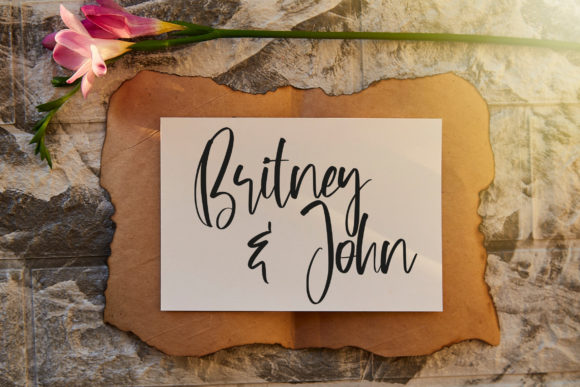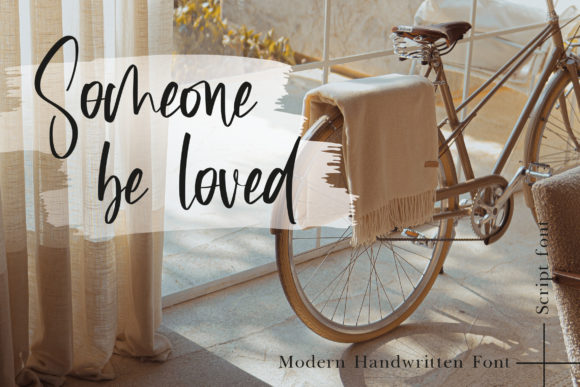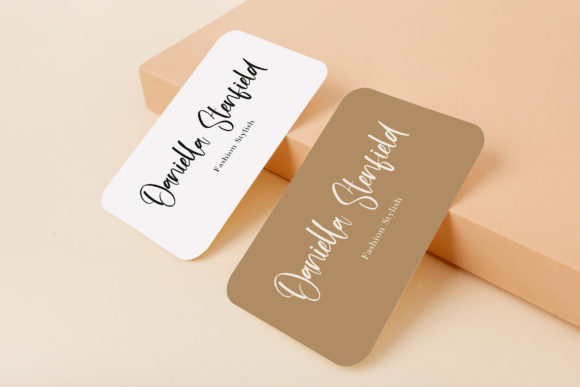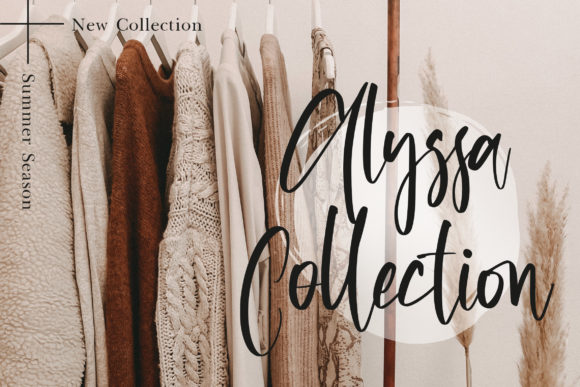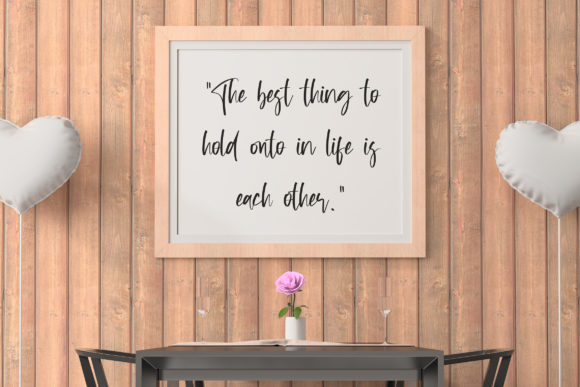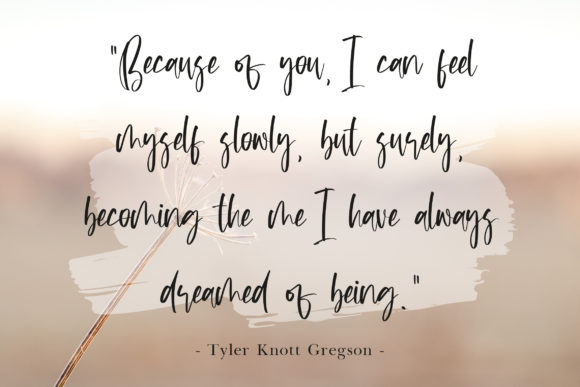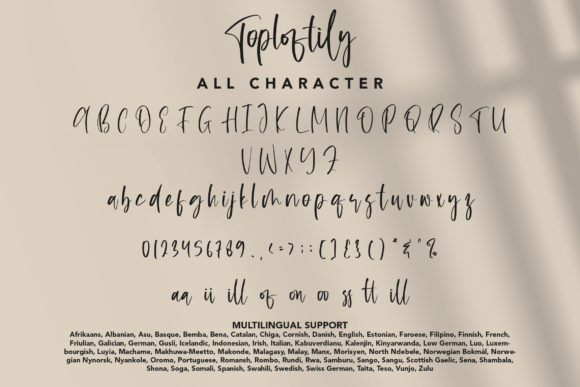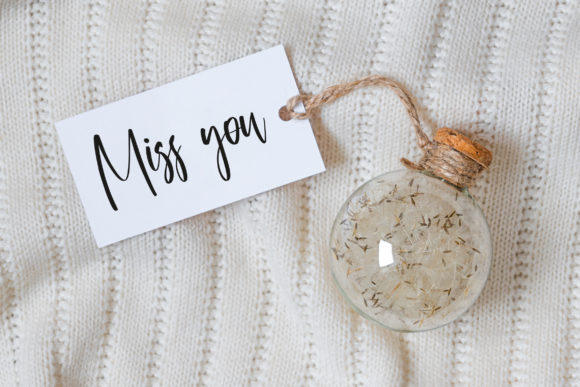
Toploftily Font
About Toploftily Font
Toploftily is an elegant and dainty handwritten font that features sweet and delicate swashes. This original look will appeal to a wide range of crafty ideas, from letterheads and titles, to stationery.